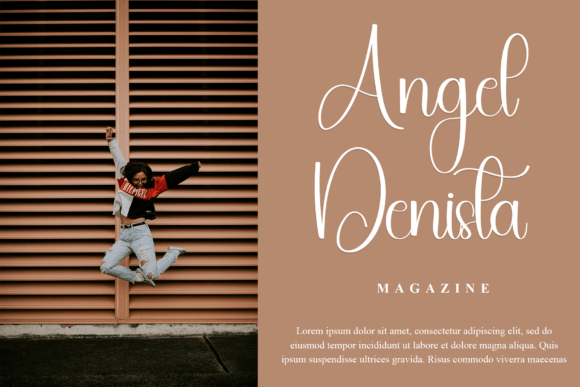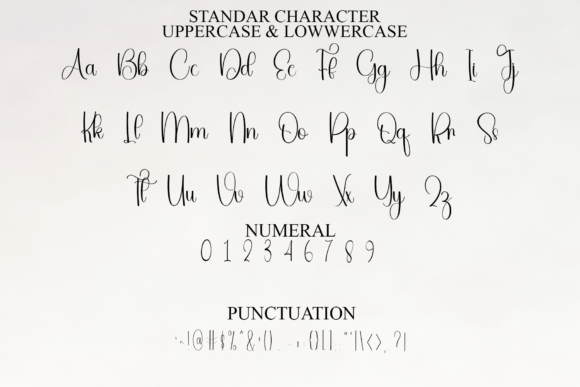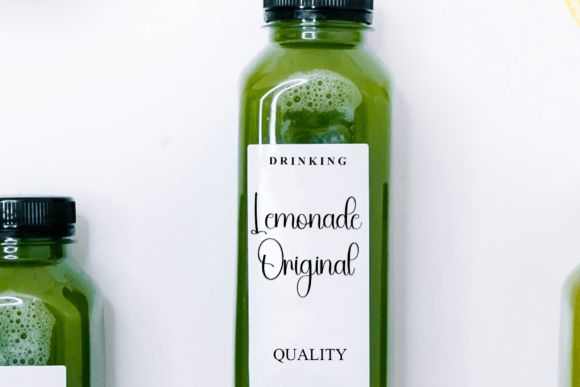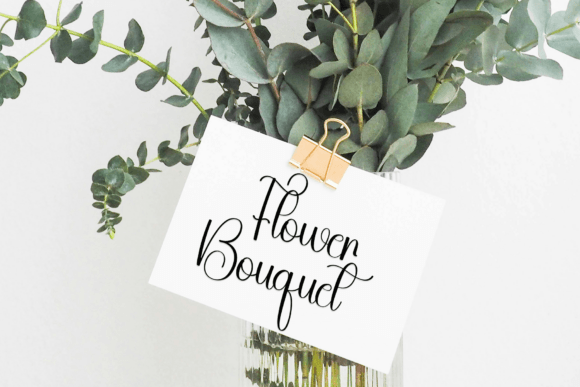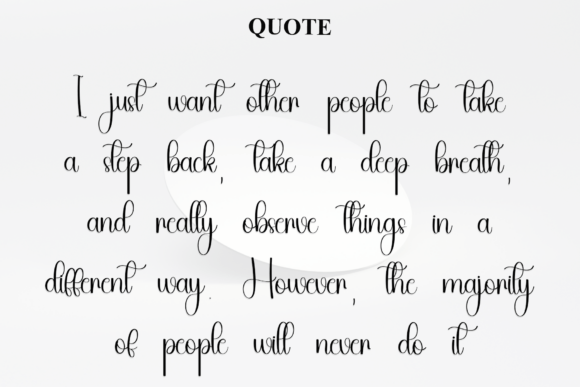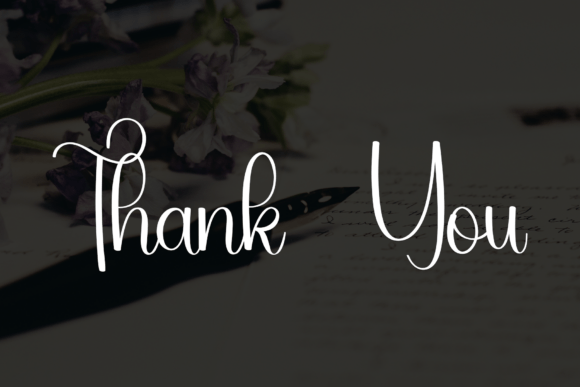
The Beauty of Beautiful Handwriting Font: A Designer’s Delight
I still remember the time I was working on a project for a client who wanted a custom wedding invitation. I had spent hours agonizing over the design, but something was missing. That’s when I realized I needed the perfect font to bring it all together. After scouring the internet, I stumbled upon the Beautiful Handwriting font, and it was love at first sight! ✨
- ✨ Soft and elegant strokes that give it a unique touch
- ✅ Extensive character set, perfect for a variety of design needs
- ✅ Works beautifully on both digital and print platforms
While Beautiful Handwriting font is a stunning addition to any design, there are a few things to keep in mind: 🤔
- ⚠️ Some characters may require manual kerning for optimal spacing
- ⚠️ Limited availability of Cyrillic or non-English characters
- Explore Canva’s built-in OpenType features, such as ligatures and stylistic alternates, to add more flair to your text
The Designer Inspiration Behind Beautiful Handwriting Font
The Beautiful Handwriting font was created with the intention of capturing the softness and elegance of handwritten text. The designer, inspired by the beauty of everyday handwriting, aimed to create a font that would be both unique and legible. With its distinctive strokes and extensive character set, Beautiful Handwriting font has become a popular choice among designers and crafters alike.
Q: What is the best way to use Beautiful Handwriting font in a design?
A: The best way to use Beautiful Handwriting font is to pair it with a clean, simple background and use it in moderation. This will allow the font’s unique strokes to shine and prevent the design from feeling overwhelming.
Q: Is Beautiful Handwriting font available in different languages?
A: While Beautiful Handwriting font has an extensive character set, it may not be available in all languages. Check the font’s character set to ensure it includes the characters you need for your design.